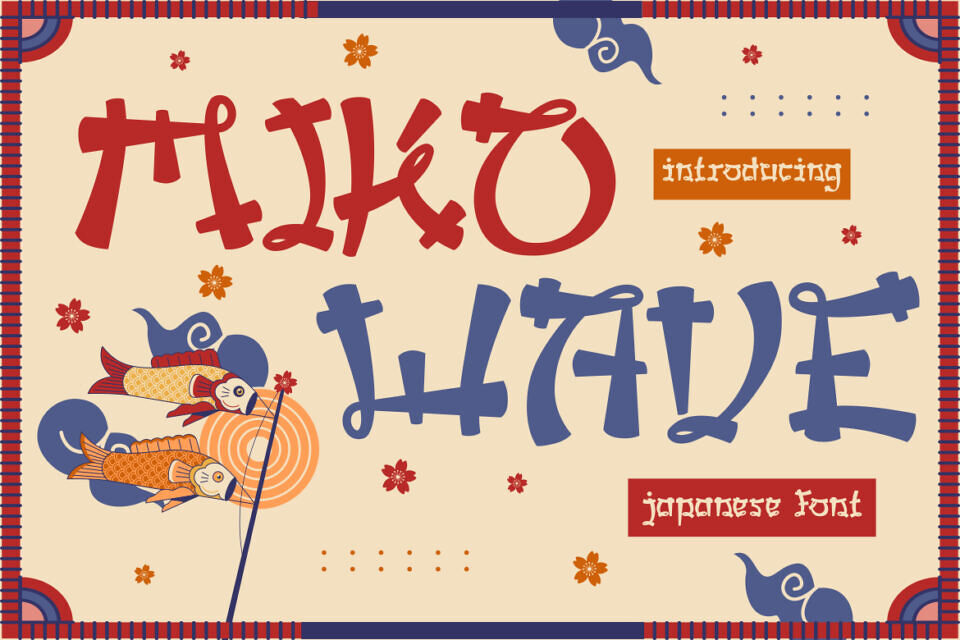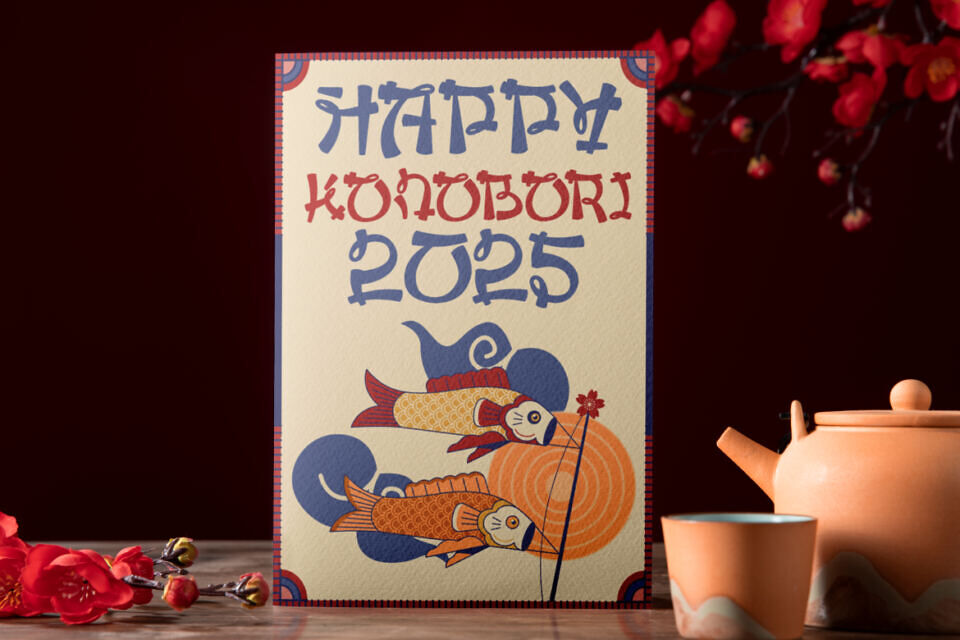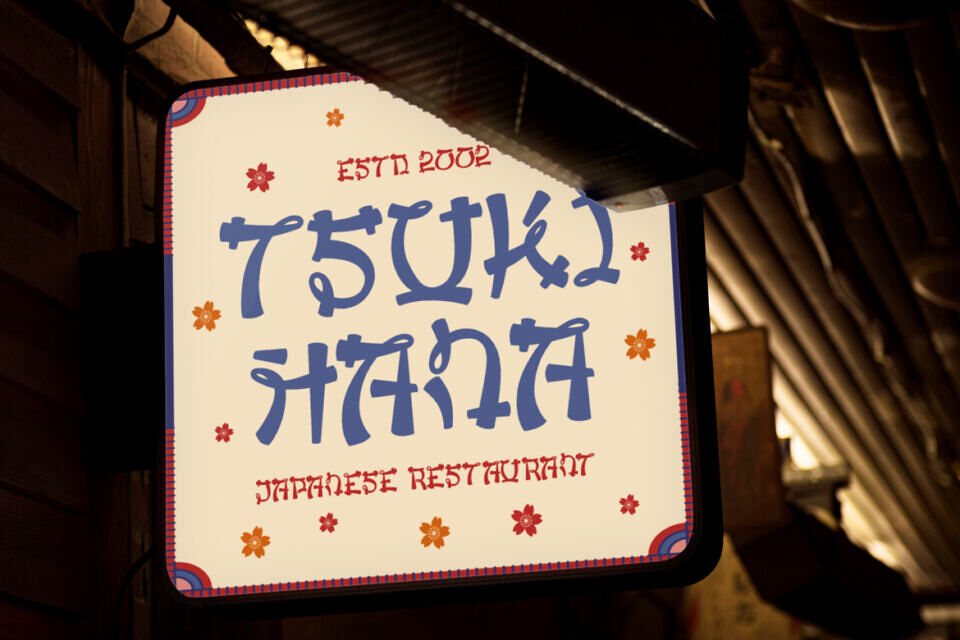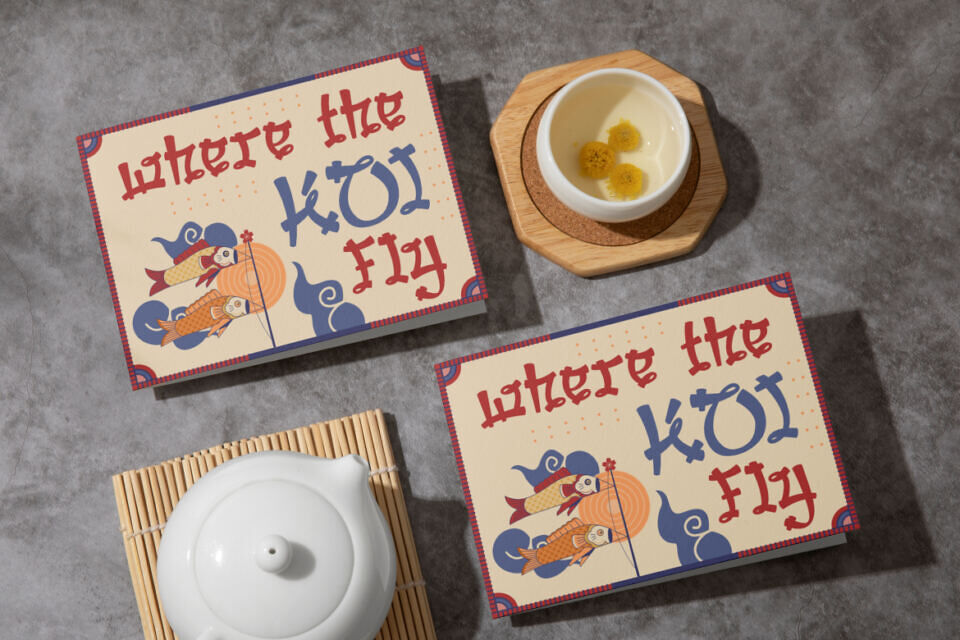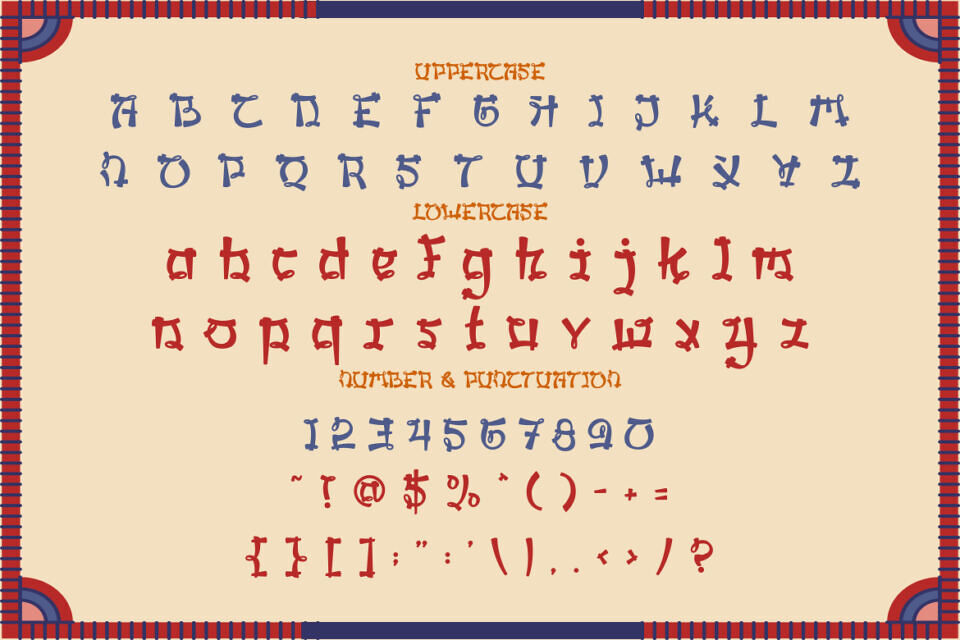
Miko Wave is a unique Japanese-style display font inspired by traditional Asian calligraphy and playful modern twists. Each letterform combines bold strokes with soft curves, creating a balance between strength and elegance.
The font features distinctive loop accents and crossbars that resemble brush-painted kanji, making it stand out in any design. With both uppercase and lowercase sets, numbers, and punctuation, it offers versatility while keeping its cultural charm intact.